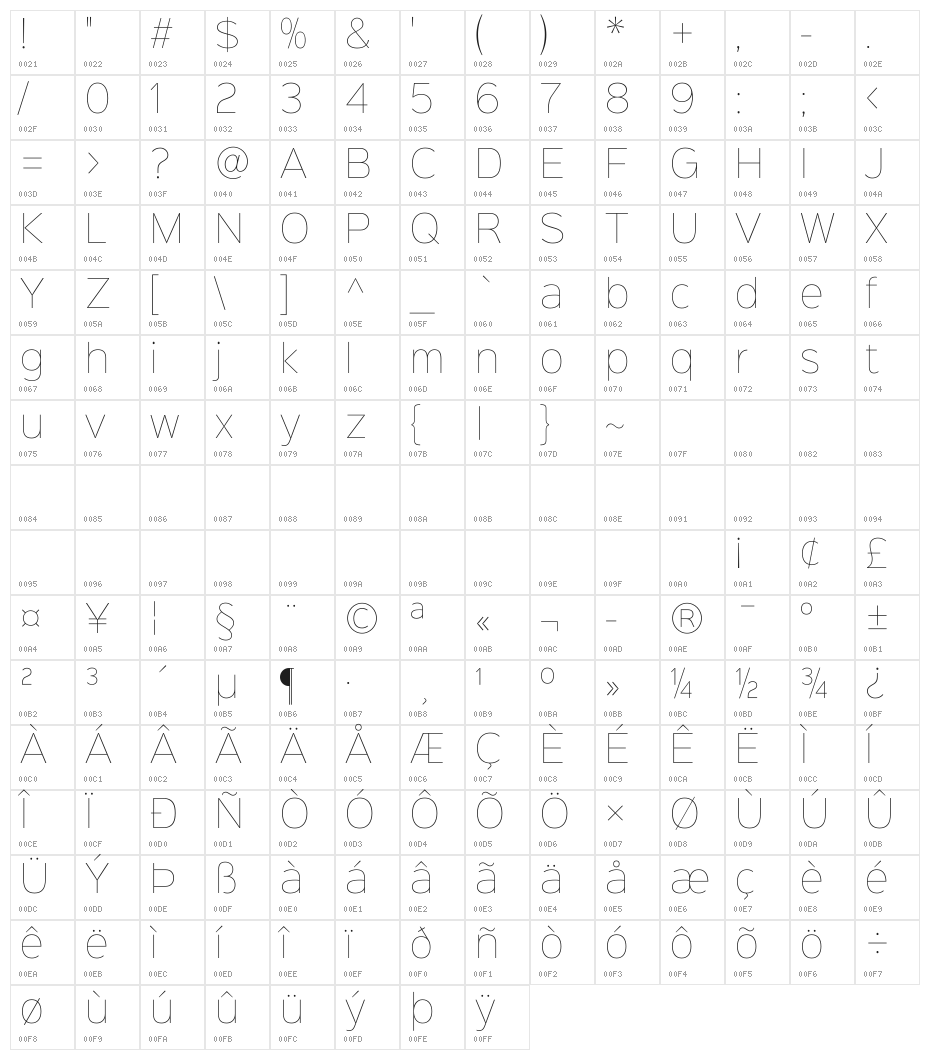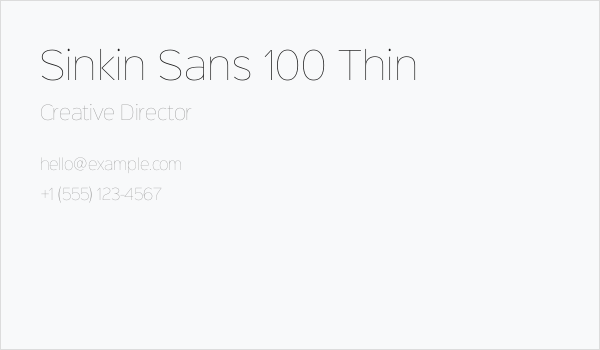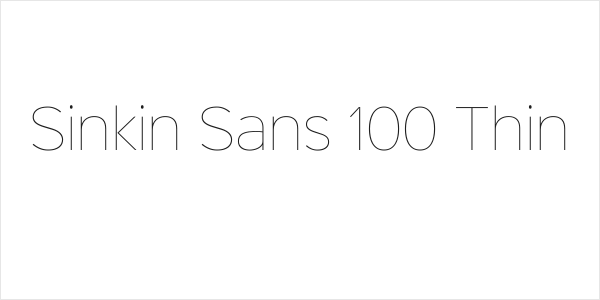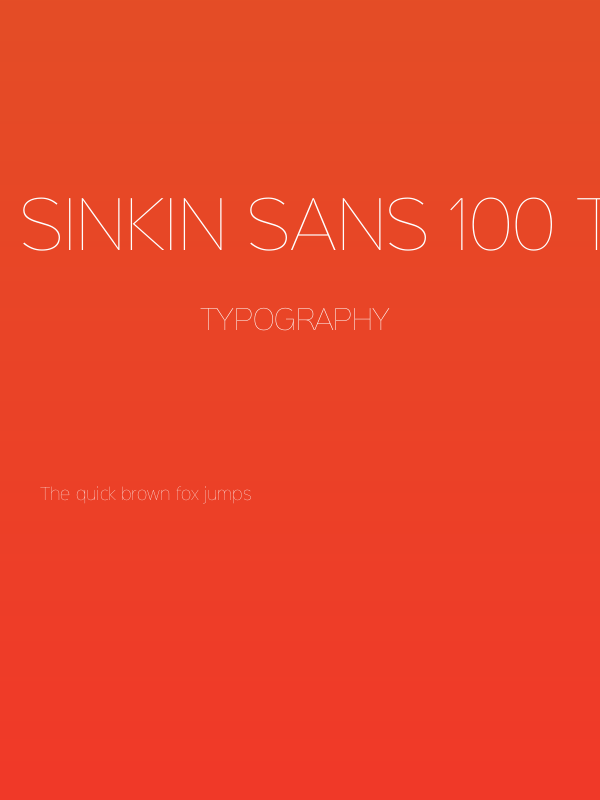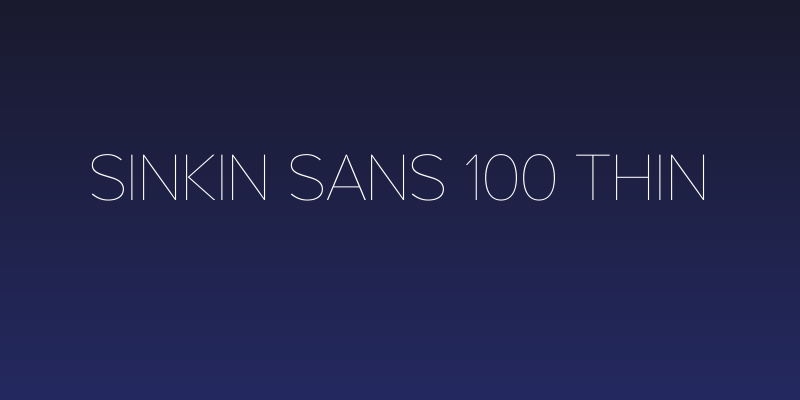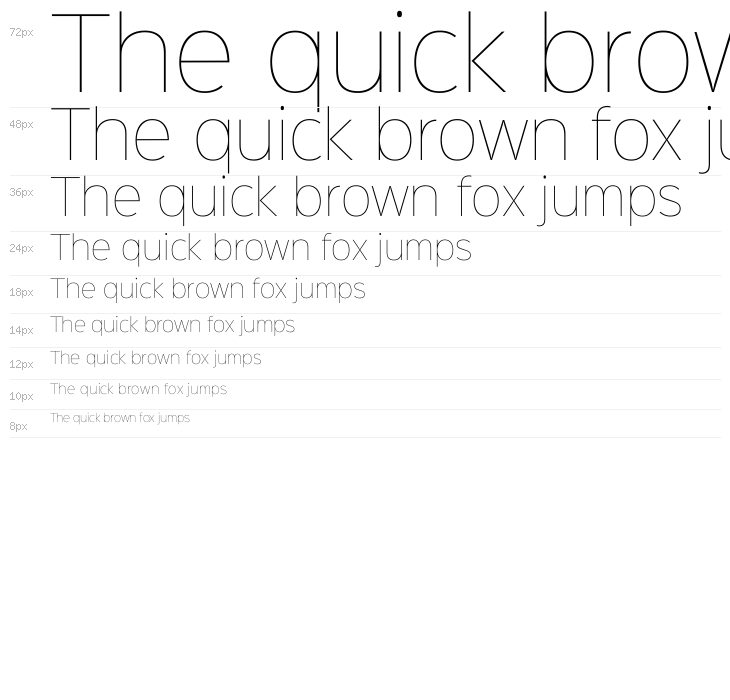
Sinkin Sans 100 Thin Font
Sinkin Sans 100 Thin Description
This font features a clean and minimalist design, characterized by its thin and uniform line weight. The sans-serif style gives it a modern and sleek appearance, making it highly legible and versatile. The characters are well-proportioned, with a geometric influence that adds to its contemporary feel. The uppercase and lowercase letters maintain a consistent height, while the numerals are clear and straightforward. Special characters are designed with the same thin strokes, ensuring a cohesive look across all glyphs. This font is ideal for projects that require a subtle yet sophisticated touch.
| Proposed Projects | Ideal for branding, web design, minimalist posters, and editorial layouts. |